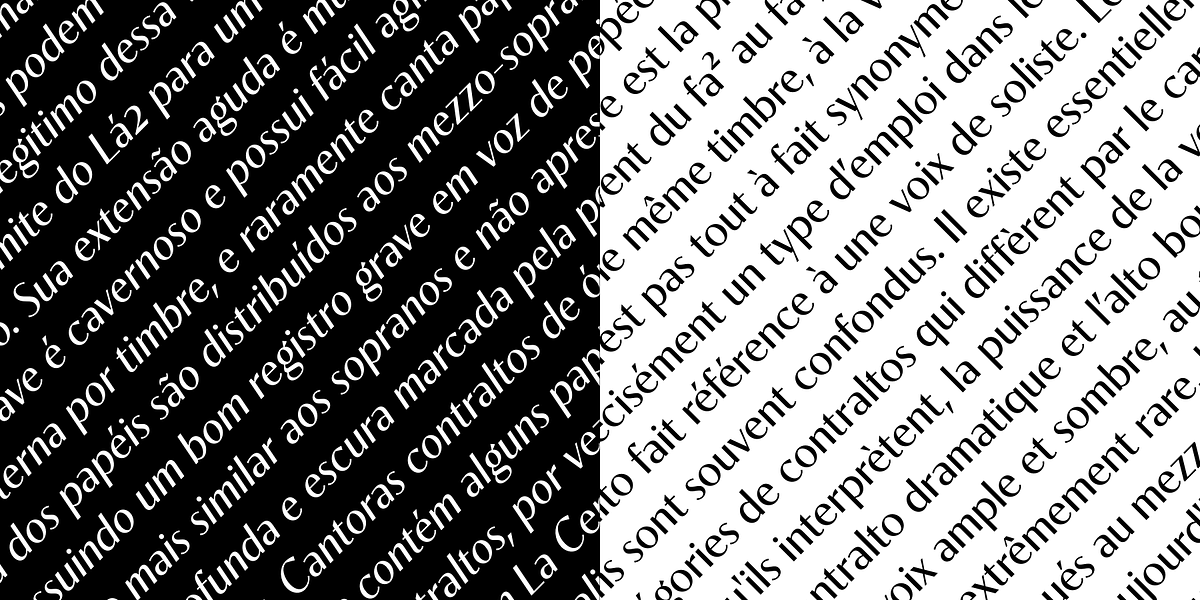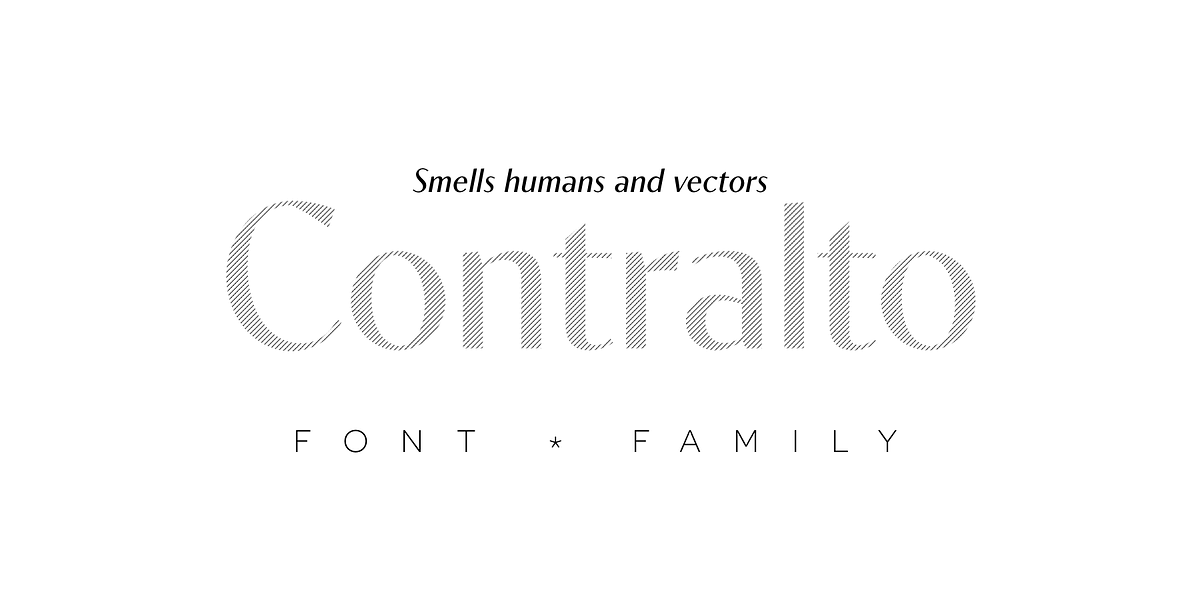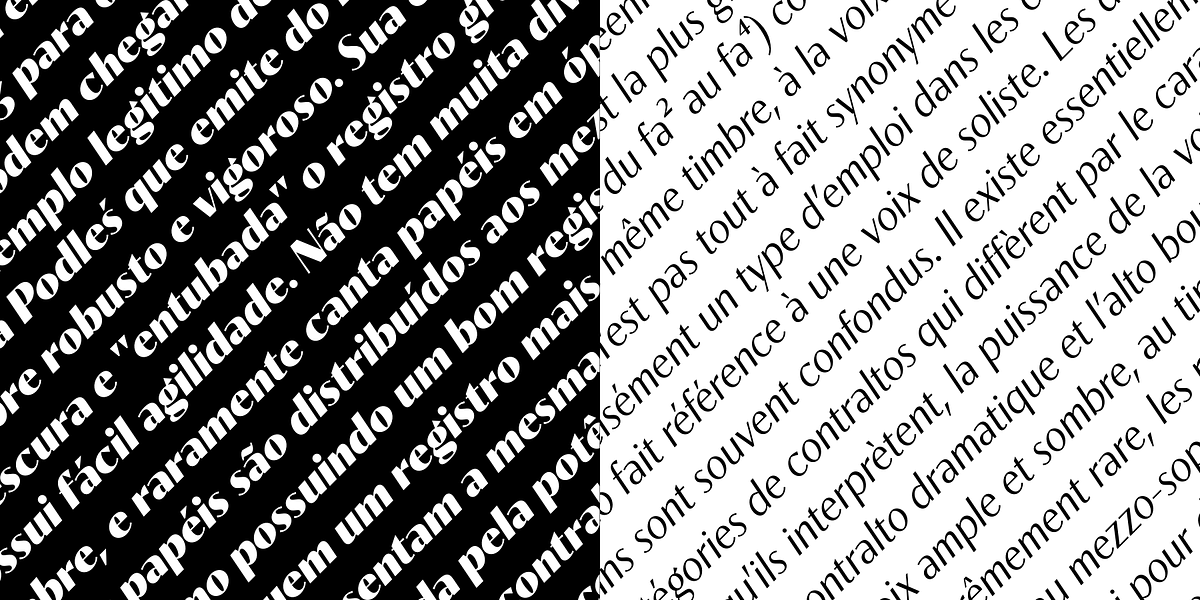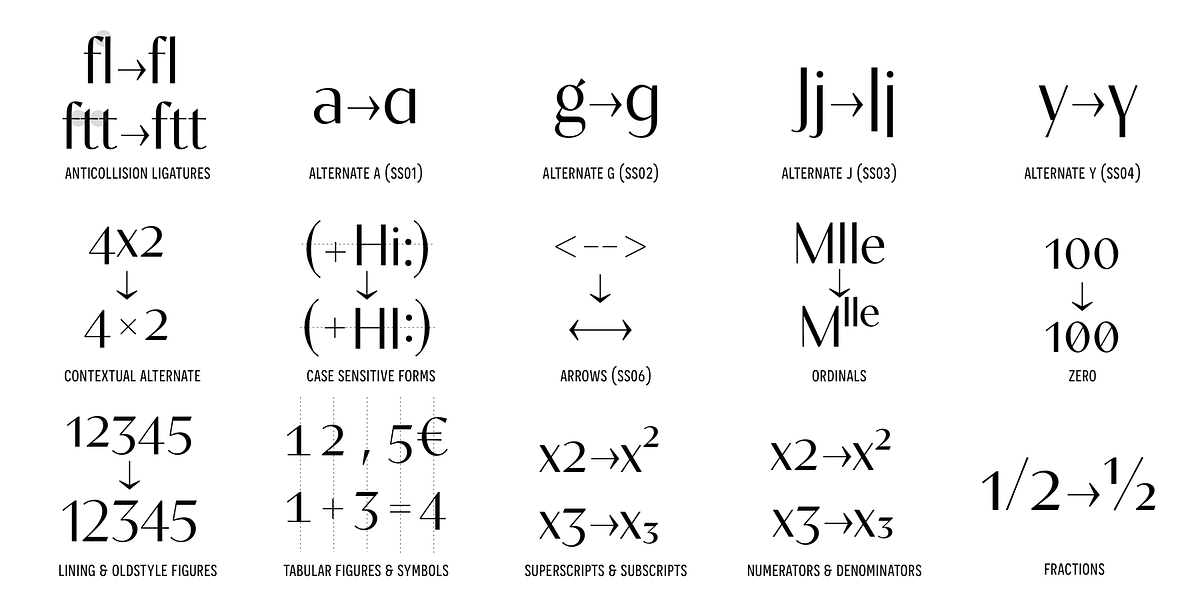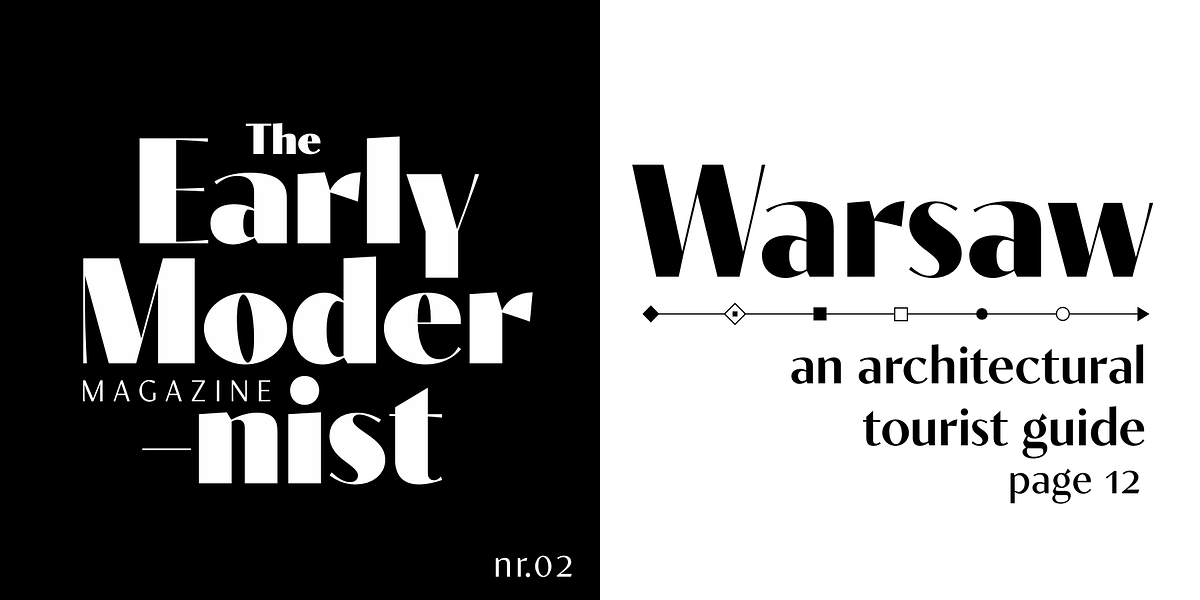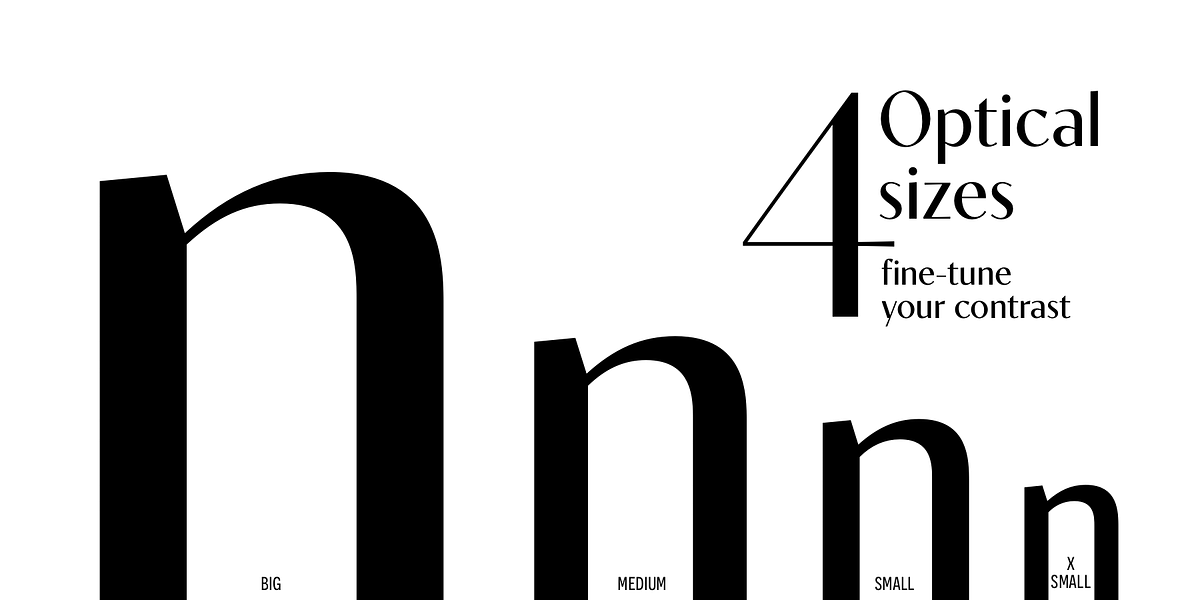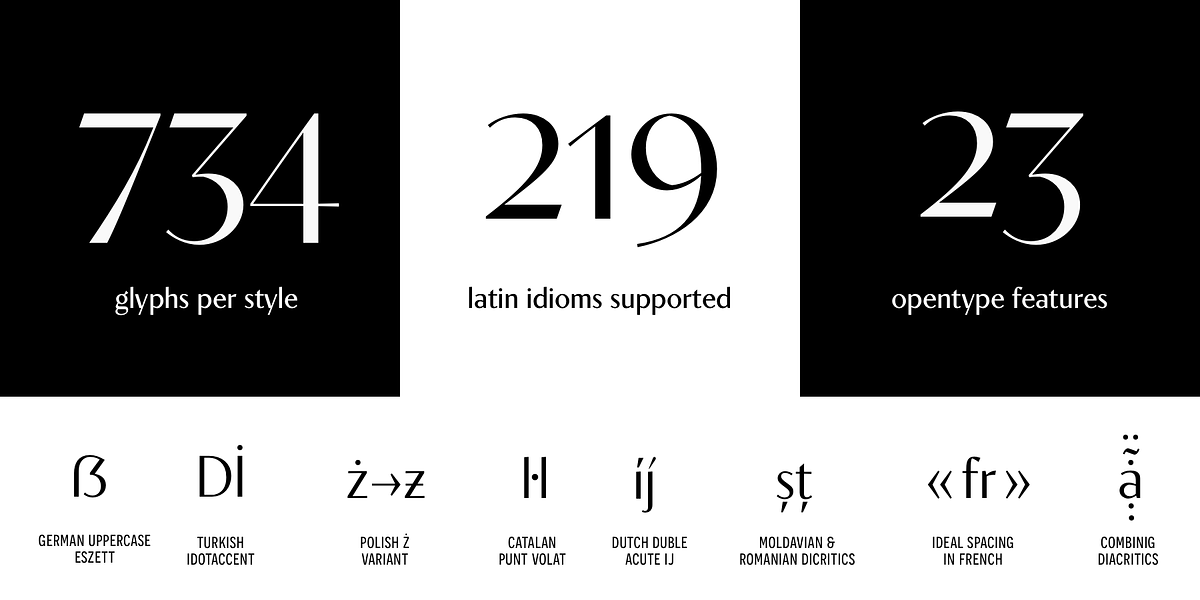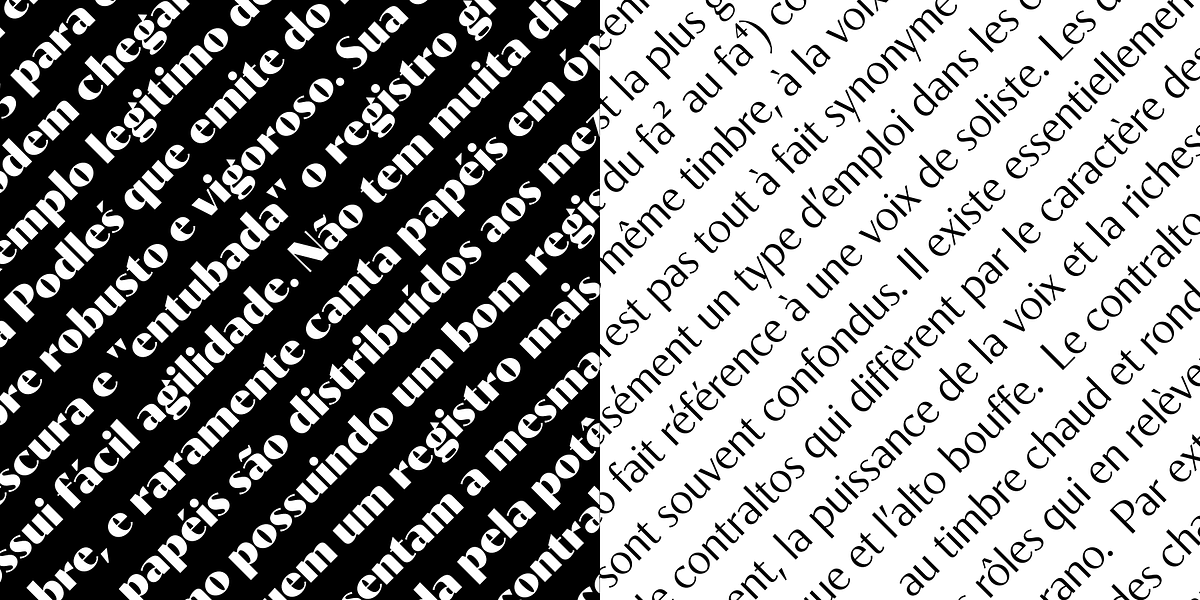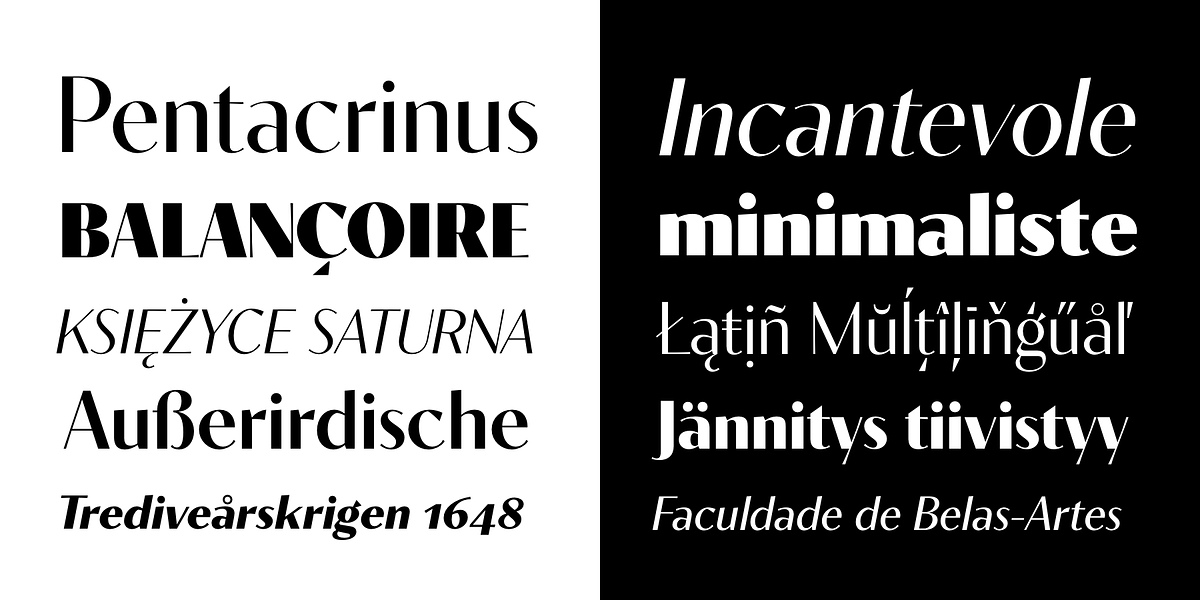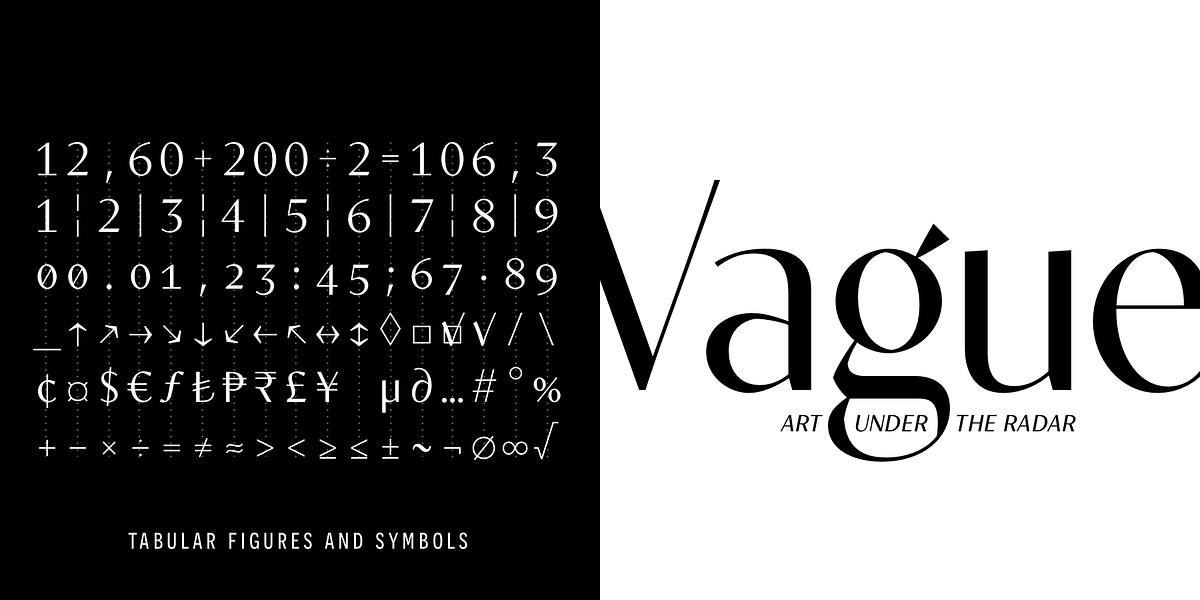
Contralto
Contralto is a high contrast sans-serif font family, crafted to look elegant but contemporary thanks to soft humanist shapes mixed with sharp geometric details. Contralto comes in 40 styles: 5 weights × italics × 4 optical sizes, to help optimising contrast and readability. However, you can also use them to fine tune the mood of your graphical composition. Contralto’s generous character set and Opentype features let you meet the most demanding layout needs and lets your creativity fly!